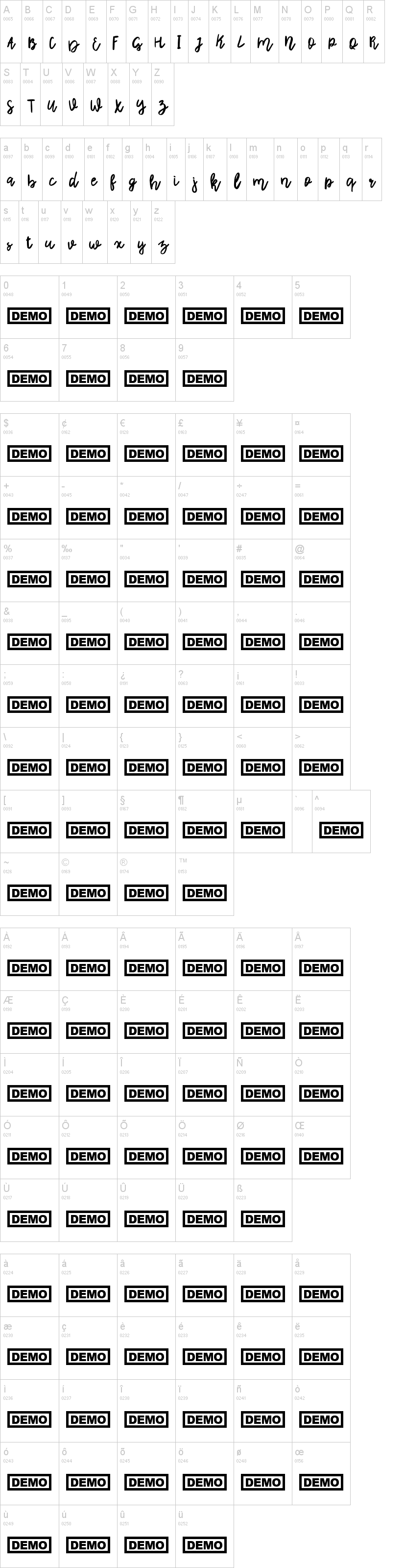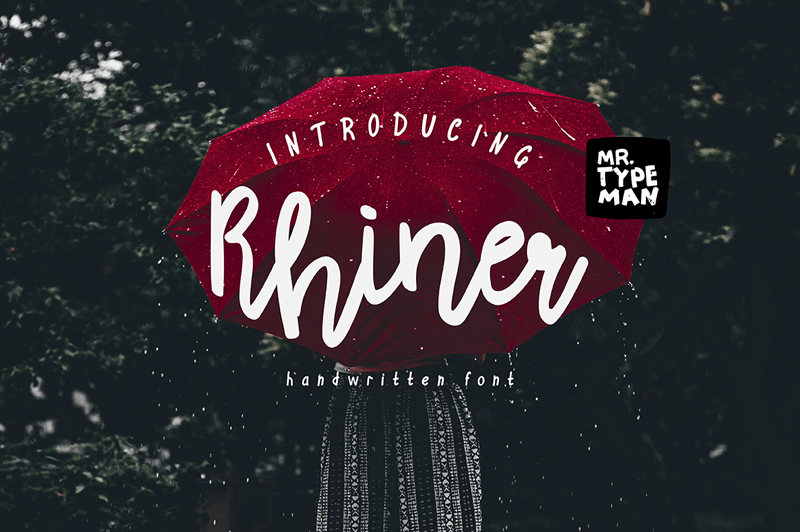
Introducing my new font Rhiner with its pleasant and elegant style. If you want to add a certain charm, appeal and allure in your projects, Rhiner is just what you need
Full version of Rhiner comes with uppercase, lowercase, standard punctuation, numerals, special letters for most of the European languages and cyrillic typeface.